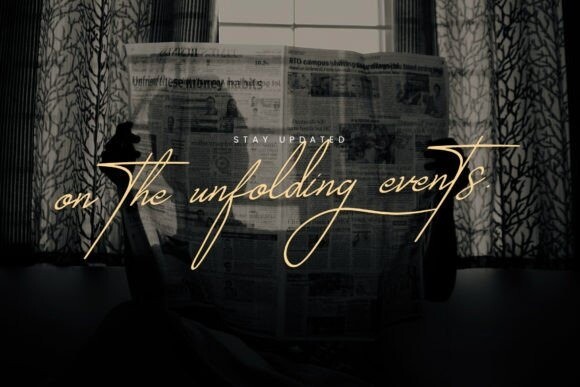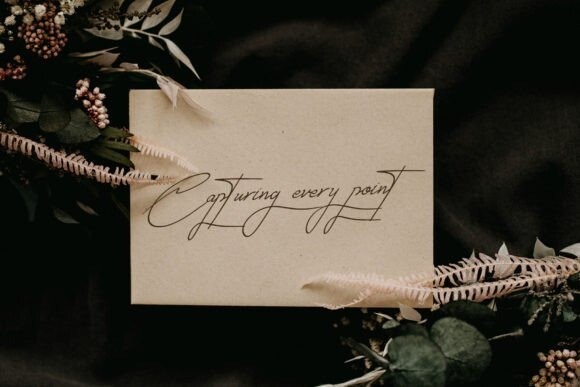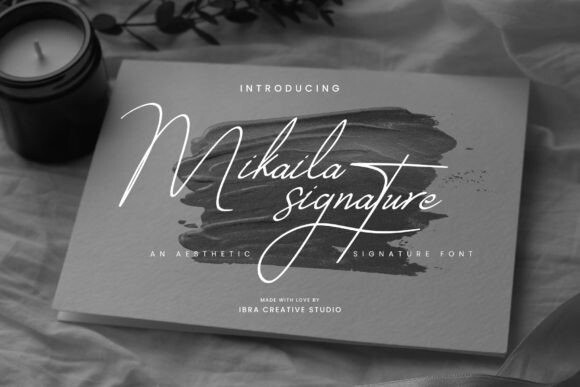
Mikaila Signature Font
Mikaila Signature Font is an exquisite and aesthetic font that epitomizes elegance and grace. Inspired by the beauty of a personalized signature, each letter in Mikaila Signature flows effortlessly with a delicate and sophisticated touch. With its refined strokes and precise curves, this typeface exudes a sense of timeless allure, making it ideal for luxury branding, high-end invitations, and sophisticated editorial layouts.
Mikaila Signature adds an air of exclusivity and sophistication to any design, capturing attention and leaving a lasting impression. Whether used for elegant logos or refined product packaging, this font exudes an aura of class and finesse, making it the quintessential choice for those seeking an aesthetic signature font that exudes impeccable style.